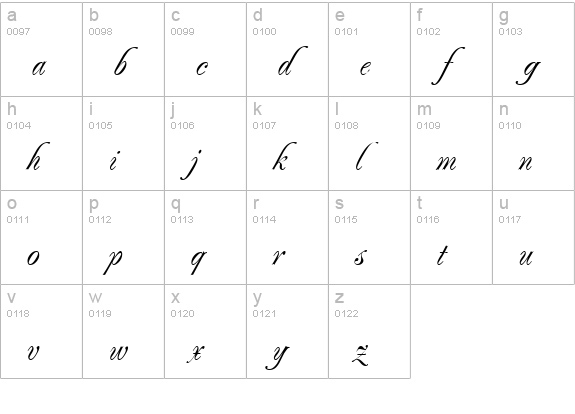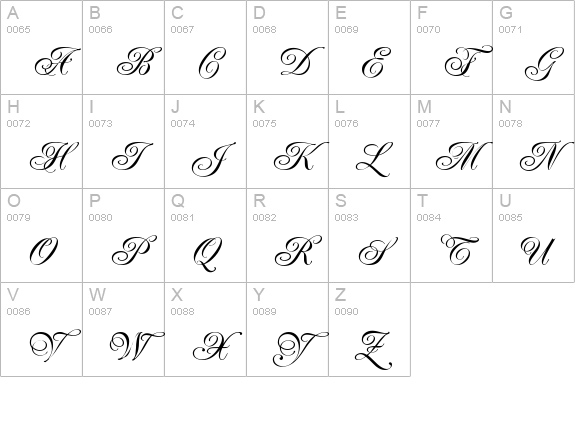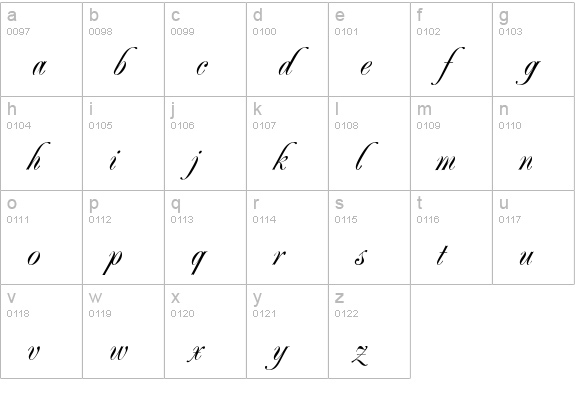
Renaissance-Regular Font Details
Renaissance-Regular is the standard, neutral variant in the Renaissance typeface family \xE2\x80\x94 well suited to general body text, paragraphs, and standard typographic work.
Renaissance-Regular is a timeless and sophisticated font that encapsulates the essence of the Renaissance period. With its elegant and intricate letterforms, this font is perfect for adding a touch of class to any project. Whether you are designing a wedding invitation, creating a luxurious logo, or crafting a vintage-inspired poster, Renaissance-Regular is sure to elevate your design to new heights. What makes Renaissance-Regular even more appealing is that it is available for free! That's right, this stunning font can be downloaded at no cost from FontsMarket.com. This means that you can enjoy the beauty and intricacy of Renaissance-Regular without breaking the bank. Whether you are a professional designer or a hobbyist, this free font is a must-have addition to your collection. The versatility of Renaissance-Regular is truly remarkable. Its clean lines and classic proportions make it suitable for both print and digital media. Whether you are working on a magazine layout, a website design, or a branding project, Renaissance-Regular will bring a touch of elegance and sophistication to your work. Furthermore, Renaissance-Regular supports a wide range of languages, making it perfect for international projects. From English to French, Spanish to German, this font will ensure that your message is conveyed accurately and beautifully, regardless of the language. So why wait? Download Renaissance-Regular for free at FontsMarket.com and experience the beauty and versatility of this exquisite font. Whether you are a seasoned designer or just starting out, Renaissance-Regular is sure to inspire and enhance your creative endeavors. Don't miss out on this incredible opportunity to add a touch of Renaissance charm to your designs.